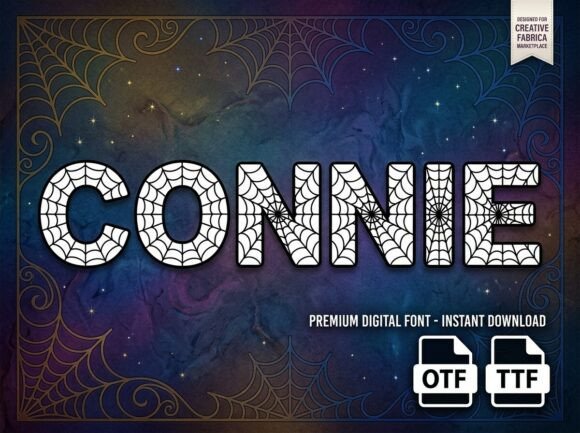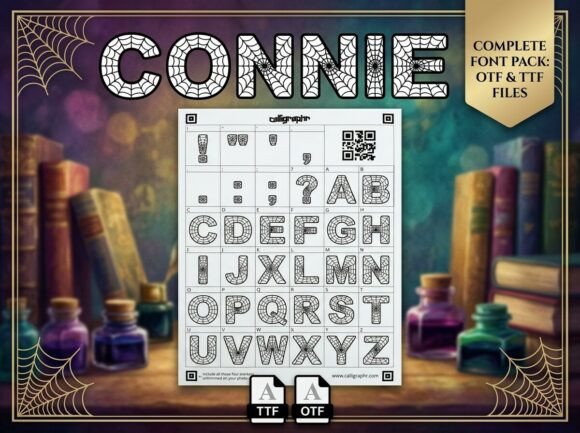
Introducing Connie Font: A Stunning Decorative Display Font
Are you tired of using the same old fonts for your designs? Do you want to add a touch of uniqueness and creativity to your projects? Look no further than Connie Font, a breathtaking decorative display font that’s sure to turn heads. In this article, we’ll dive into the features and benefits of Connie Font, and explore how it can elevate your designs to the next level.
Connie Font is a stunning decorative display font designed to be the center of attention. With its unique artistic elements and strong visual personality, this font is perfect for creators who want to break away from the ordinary. Whether you’re working on a bold headline, artistic logo, or creative packaging, Connie Font is the perfect choice. Its versatility and professional finish make it an excellent addition to any design project.
Before you make your purchase, it’s essential to note that Connie Font is an ALL-CAPS (Uppercase Only) display typeface. This means that it does not include lowercase letters. However, this is by design, as Connie Font is specifically created for high-impact headlines, logos, and decorative initials where every letter is a work of art.
Connie Font is an excellent choice for designers and crafters who want to add a touch of elegance and sophistication to their projects. Whether you’re working on:
- Logos and branding – Connie Font’s unique artistic elements and strong visual personality make it perfect for creating memorable logos and branding materials.
- Headlines and titles – Connie Font’s bold and decorative design makes it ideal for headlines, titles, and other display text.
- Packaging and labels – Connie Font’s professional finish and versatility make it an excellent choice for creative packaging and labels.
Tips for Using Connie Font
To get the most out of Connie Font, here are a few tips:
- Use it sparingly – Connie Font is a bold and attention-grabbing font, so use it sparingly to avoid overwhelming your design.
- Experiment with colors and textures – Connie Font looks great with a variety of colors and textures, so don’t be afraid to experiment and find the perfect combination for your design.
- Pair it with other fonts – Connie Font pairs well with a variety of other fonts, so feel free to experiment with different combinations to find the perfect look for your design.
Connie Font is a stunning decorative display font that’s perfect for designers and crafters who want to add a touch of uniqueness and creativity to their projects. With its unique artistic elements, strong visual personality, and professional finish, Connie Font is an excellent choice for a wide range of design applications. Whether you’re working on logos, headlines, packaging, or other design projects, Connie Font is sure to elevate your designs to the next level.